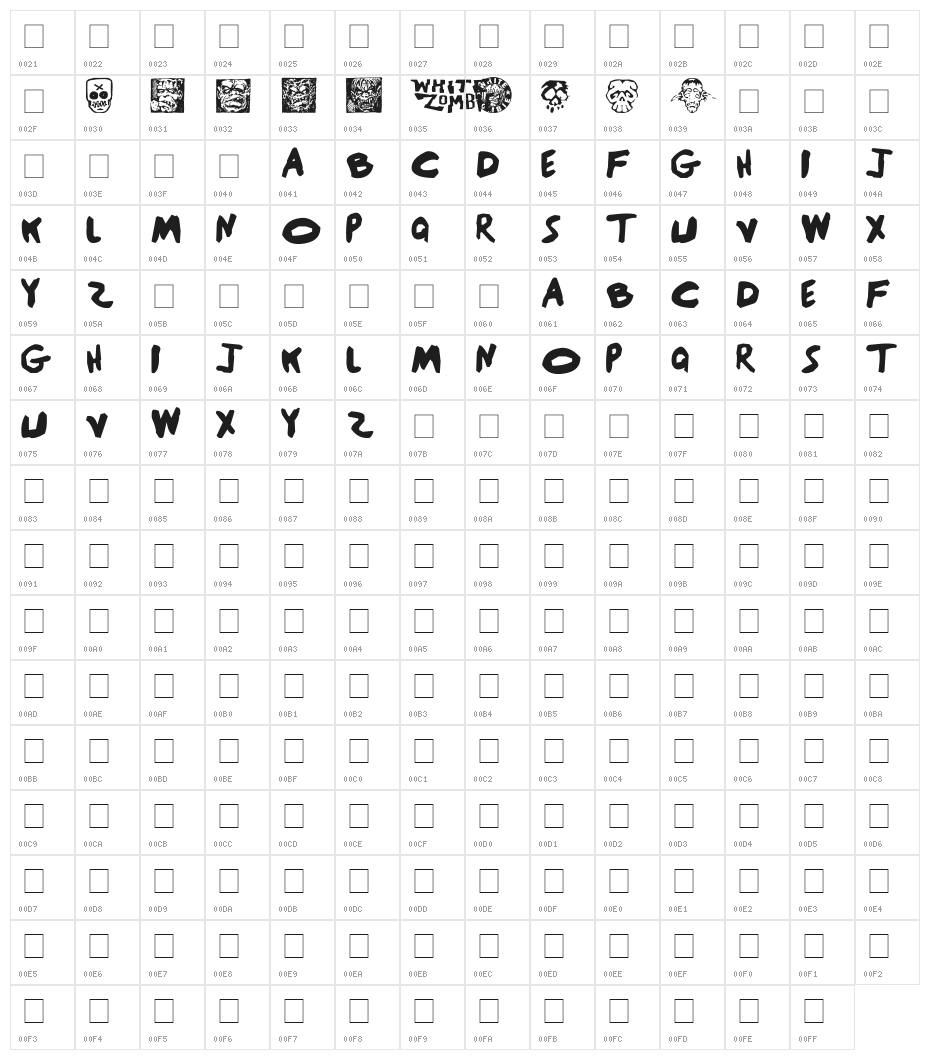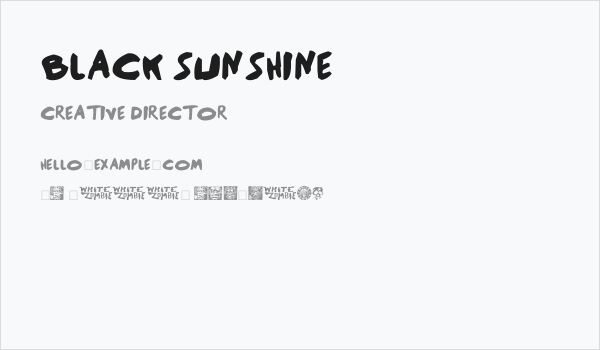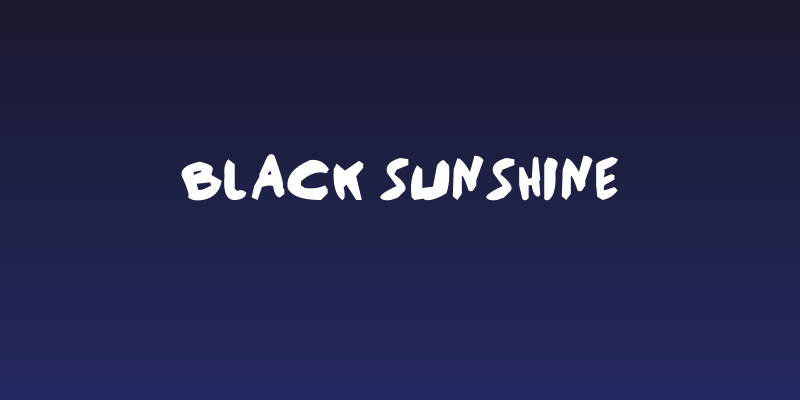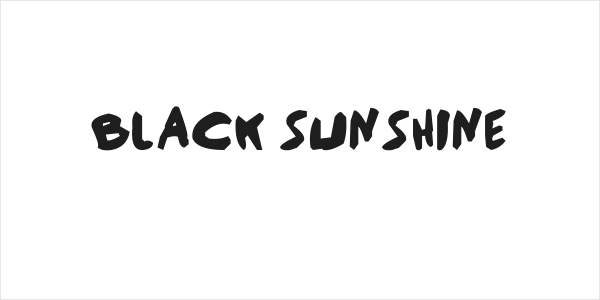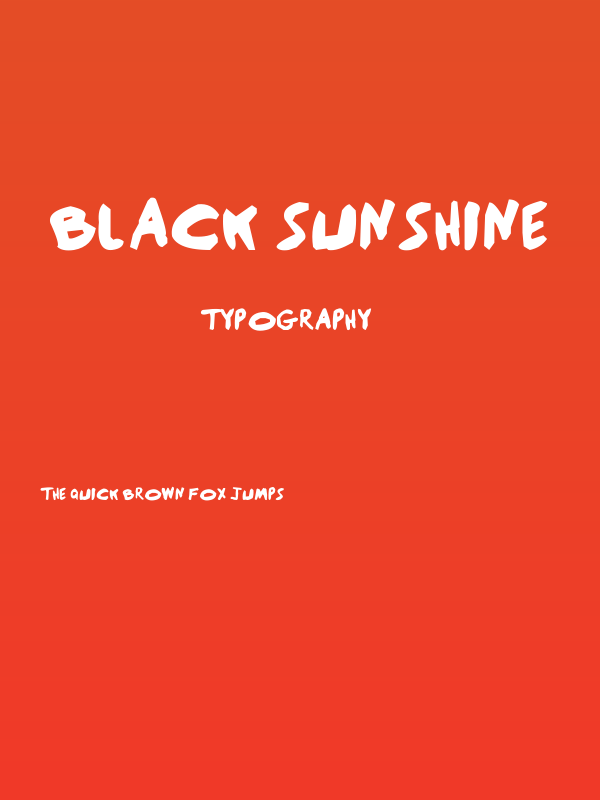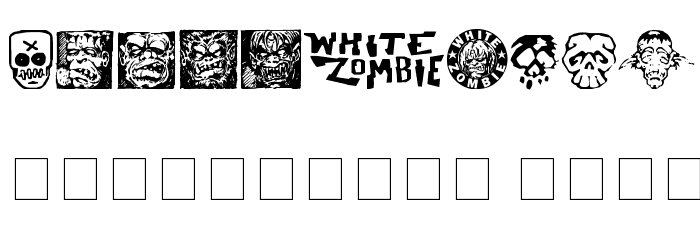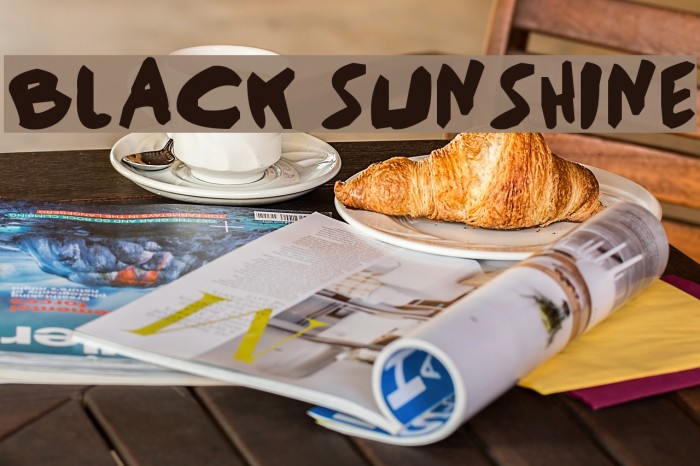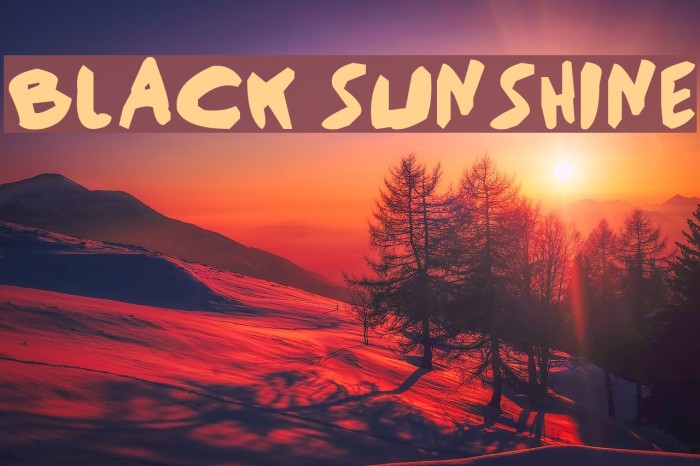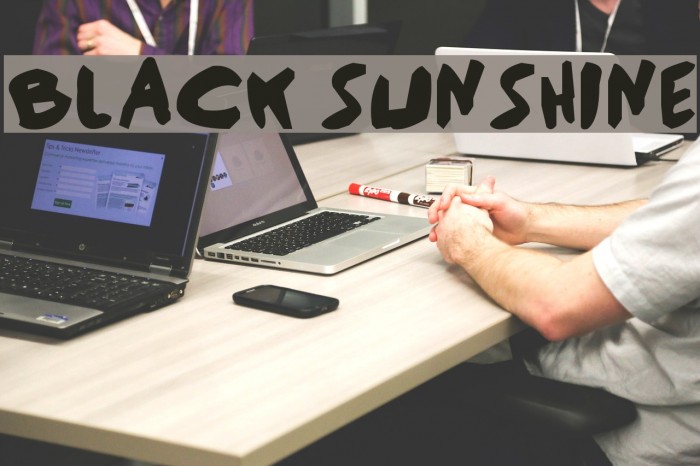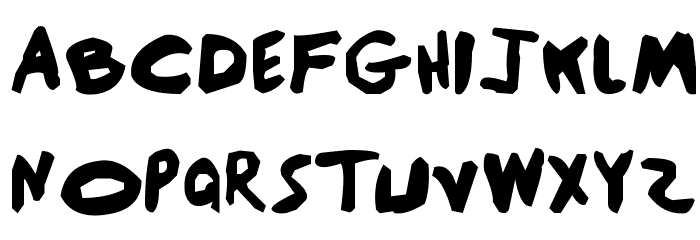
Black Sunshine Font
Black Sunshine Description
This font features a bold, irregular style with a hand-drawn appearance, giving it a raw and edgy feel. The letters are unevenly shaped, with varying thicknesses that create a dynamic and energetic look. The uppercase and lowercase letters maintain a consistent style, with a playful and slightly chaotic arrangement. The font includes unique special characters that add to its distinctive personality. Its rough edges and bold strokes make it stand out, perfect for projects that require a touch of rebellion or creativity.
BLACK-SUNSHINE UPPERCASE
BLACK-SUNSHINE LOWERCASE
BLACK-SUNSHINE OTHER CHARS
| Proposed Projects | Ideal for music album covers, posters, graffiti art, and any project needing a rebellious or creative touch. |